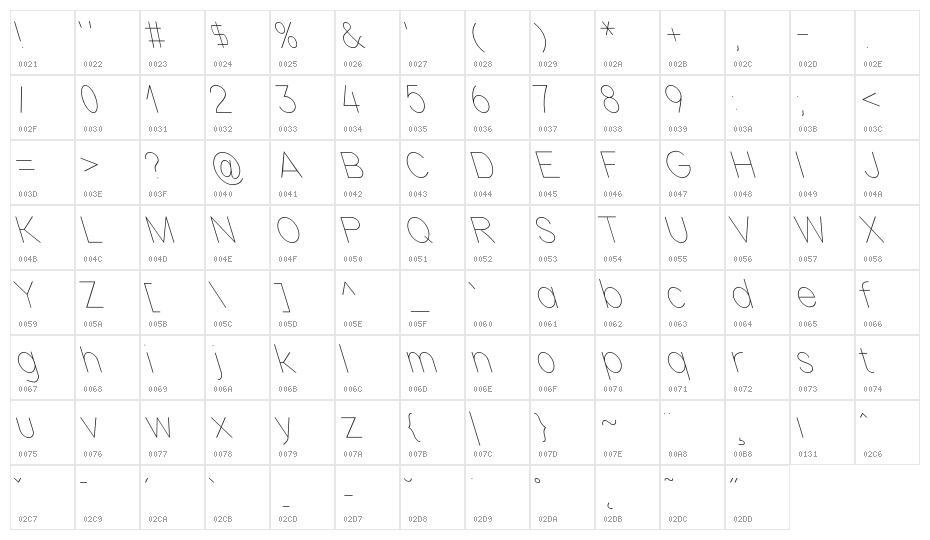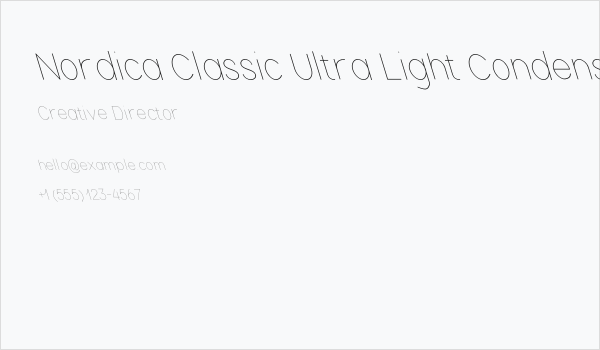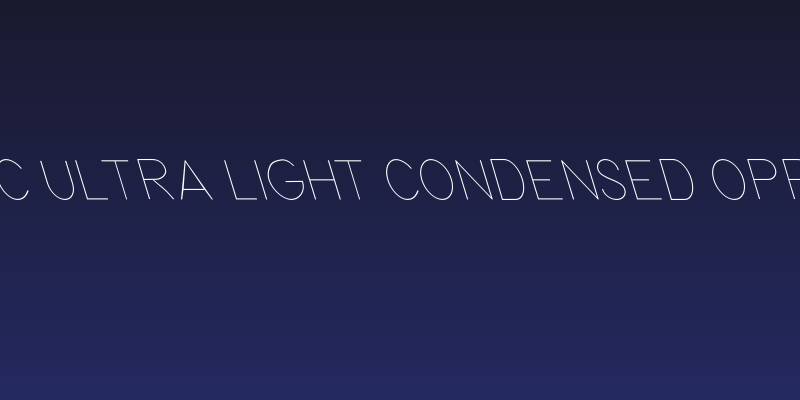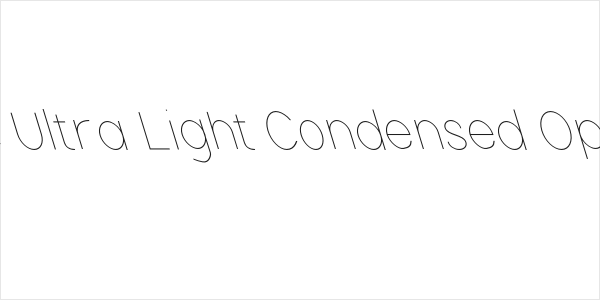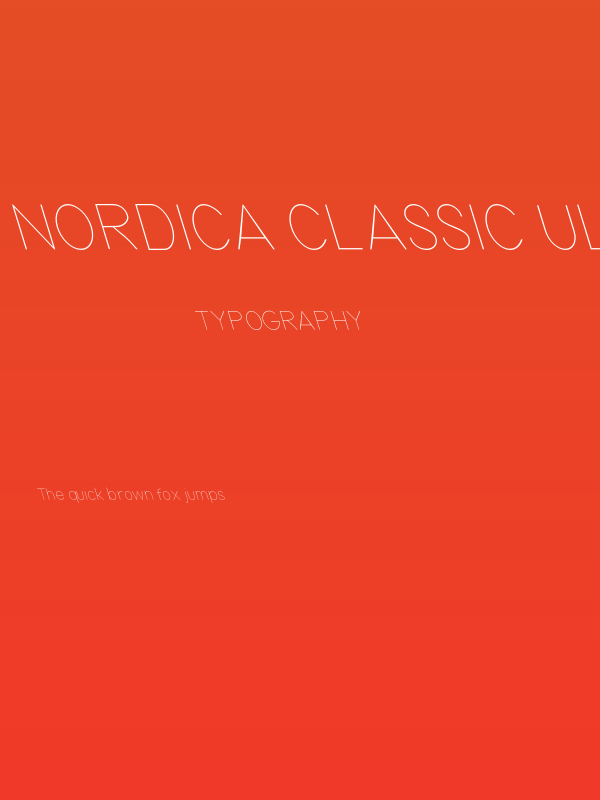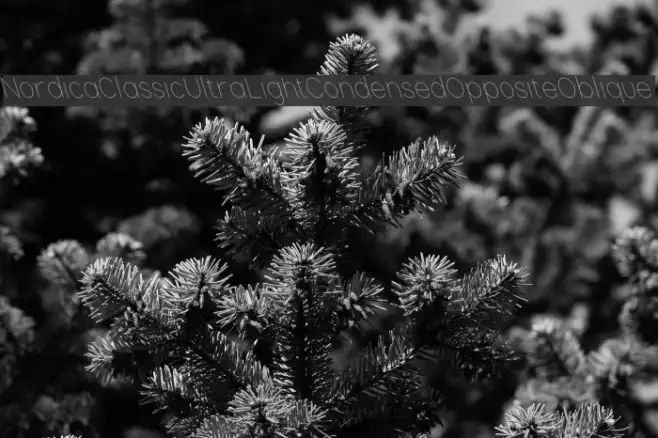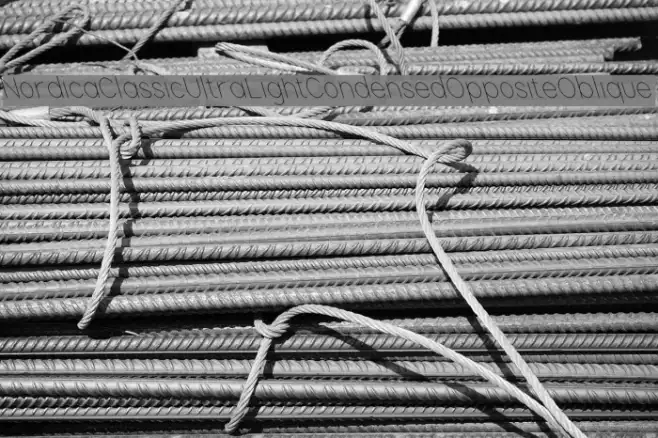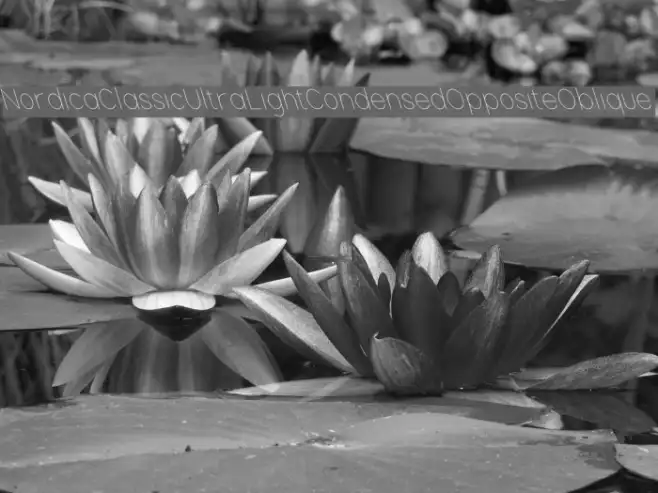
Nordica Classic Ultra Light Condensed Opposite Oblique Font
Nordica Classic Ultra Light Condensed Opposite Oblique Description
This font exhibits a sleek and modern aesthetic with ultra-light strokes and a condensed form. The characters are elegantly oblique, providing a sense of motion and fluidity. The uppercase and lowercase letters maintain a consistent style, with clean lines and minimalistic design. The numerals are clear and legible, complementing the overall streamlined appearance. Special characters are distinct yet harmonious with the rest of the font, making it versatile for various design needs.